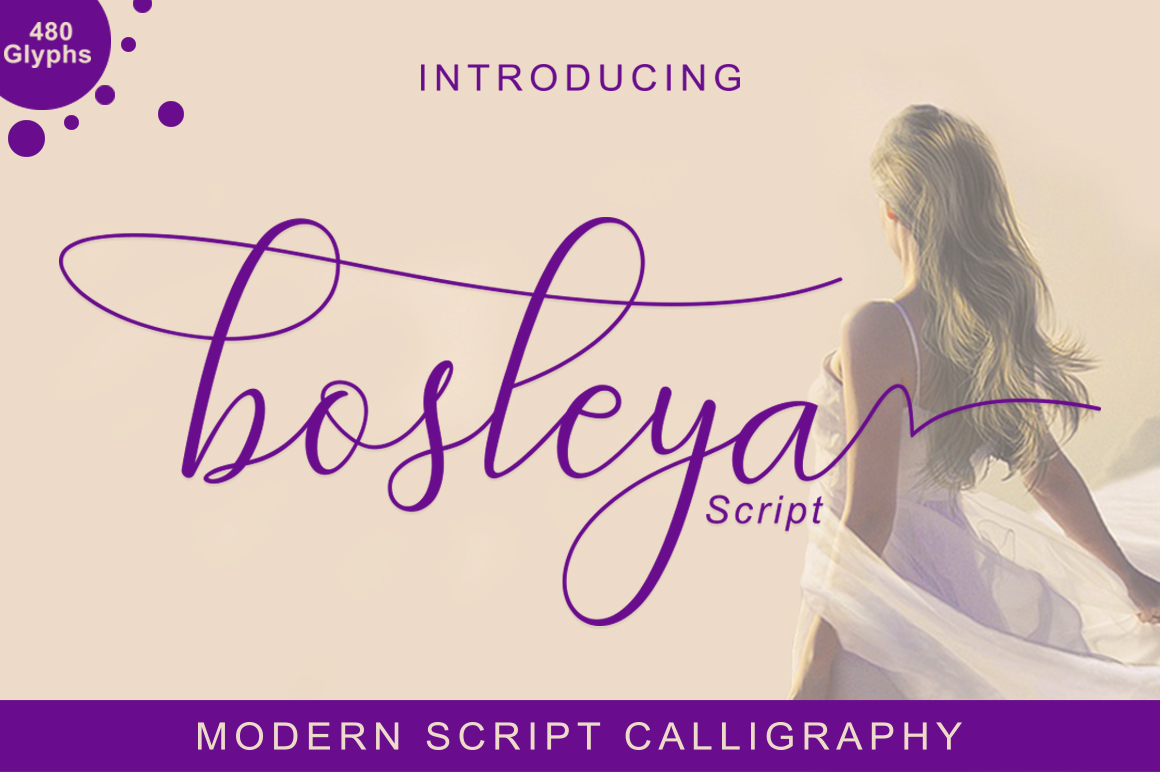
The Designer’s Delight: Unpacking the Beautiful Bosleya Font
I’ll never forget the time I was working on a branding project for a boutique bakery, and I just couldn’t find the perfect font to capture their whimsical, artisanal vibe. The client was specific about wanting something that felt handwritten, yet elegant. That’s when I stumbled upon Bosleya Font, and it was love at first sight! 💕
Bosleya is a stunning handwritten script that comes in 2 variations: Regular & Italic. Each font has over 476 unique glyphs and is packed with stunning, PUA encoded swashes & swirls. In this article, I’ll share my honest review, a practical guide on how to use Bosleya in various design platforms, and some awesome alternatives to explore.
- 💫 Elegant, flowing script with a personal touch
- ✅ Packed with over 476 unique glyphs, including swashes and swirls
- 🎨 Highly versatile: perfect for branding, packaging, and creative projects
- 🤝 Easy to read and works well in both digital and print formats
- ⚠️ Some users might find the learning curve steep due to the vast number of glyphs and swashes
- ⚠️ Not ideal for body text; best used for headlines, titles, or short paragraphs
The Story Behind Bosleya: Designer Inspiration
The story goes that Bosleya was created by a talented type designer who wanted to craft a font that felt both elegant and personal. Inspired by classic calligraphy and modern handwriting, Bosleya was born – a beautiful blend of traditional and contemporary styles.
A: PUA (Private Use Area) encoding allows for custom glyphs and characters to be used in a font, making it possible to include unique swashes and swirls in Bosleya.
Q: Is Bosleya suitable for body text?
A: While Bosleya is a beautiful font, it’s best used for headlines, titles, or short paragraphs. For body text, consider a more readable font.